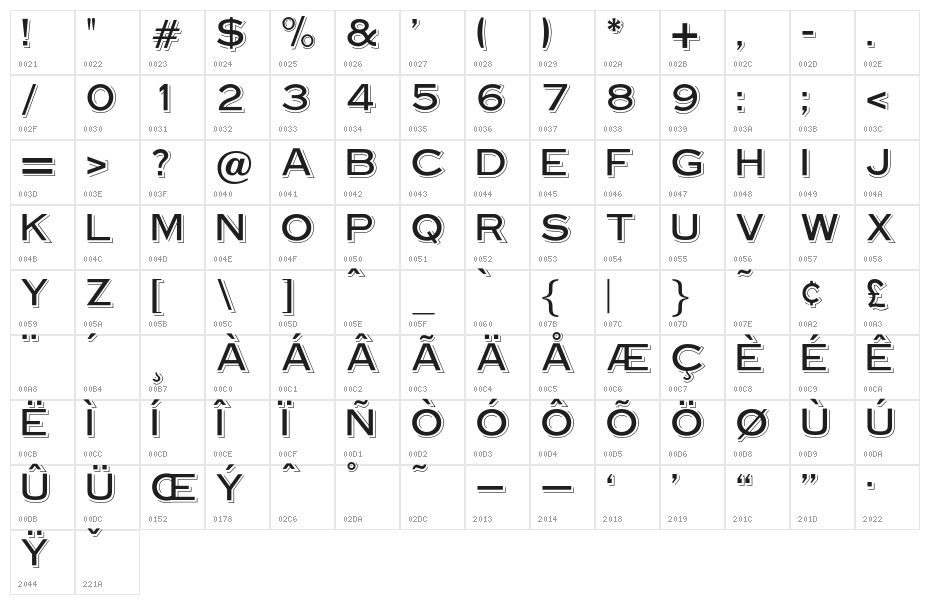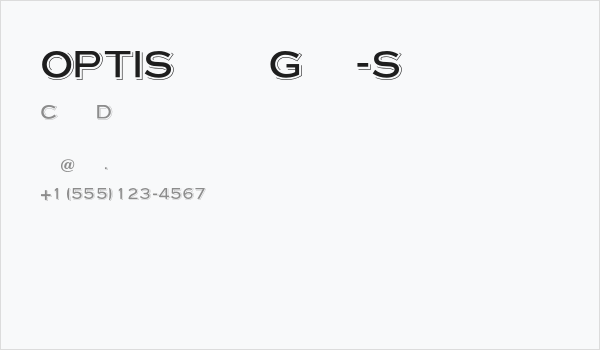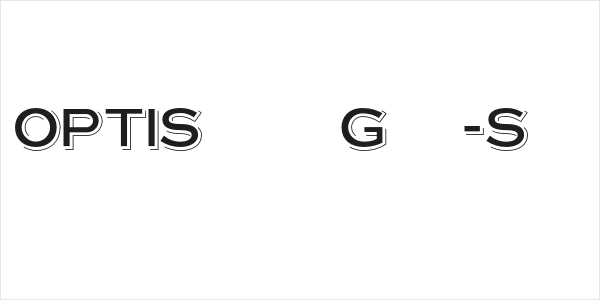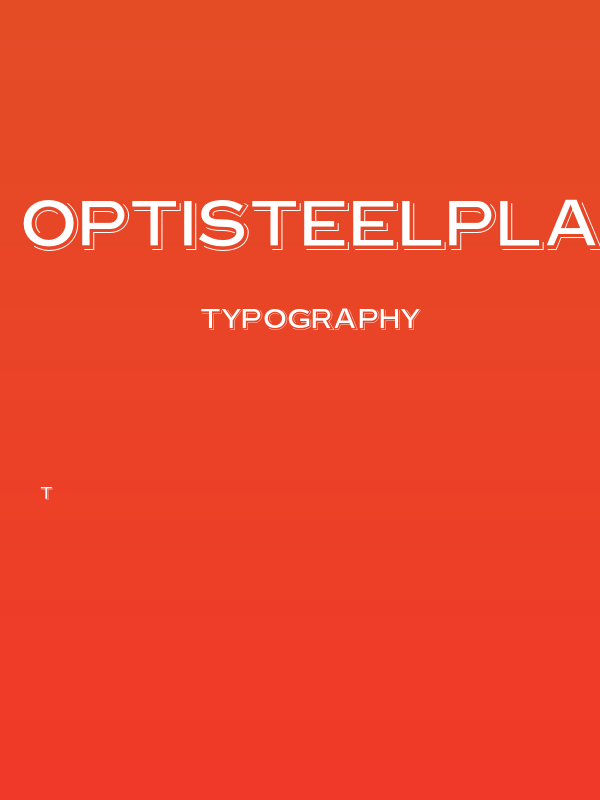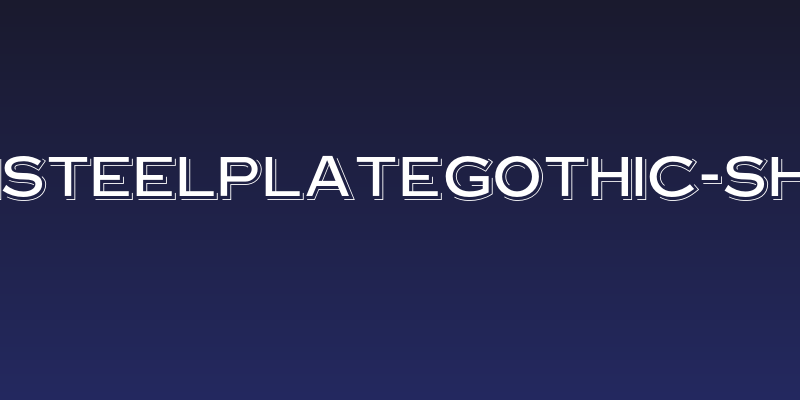
OPTISteelplateGothic-Shade Font
OPTISteelplateGothic-Shade Description
This font features a bold and impactful design with a three-dimensional effect created by its shadowed outline. The uppercase letters are robust and geometric, giving a sense of strength and stability. The numbers and special characters follow the same bold style, ensuring consistency across all characters. The font's shadow effect adds depth, making it suitable for eye-catching designs. Its clean lines and structured form make it versatile for various applications.
| Proposed Projects | Ideal for logos, posters, signage, and any project requiring a bold, attention-grabbing typeface. |